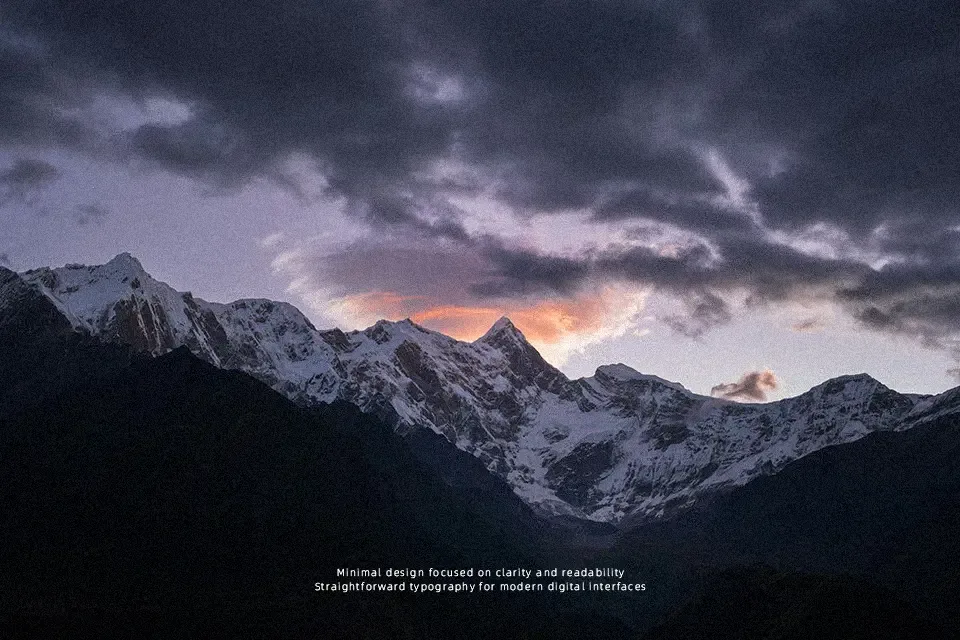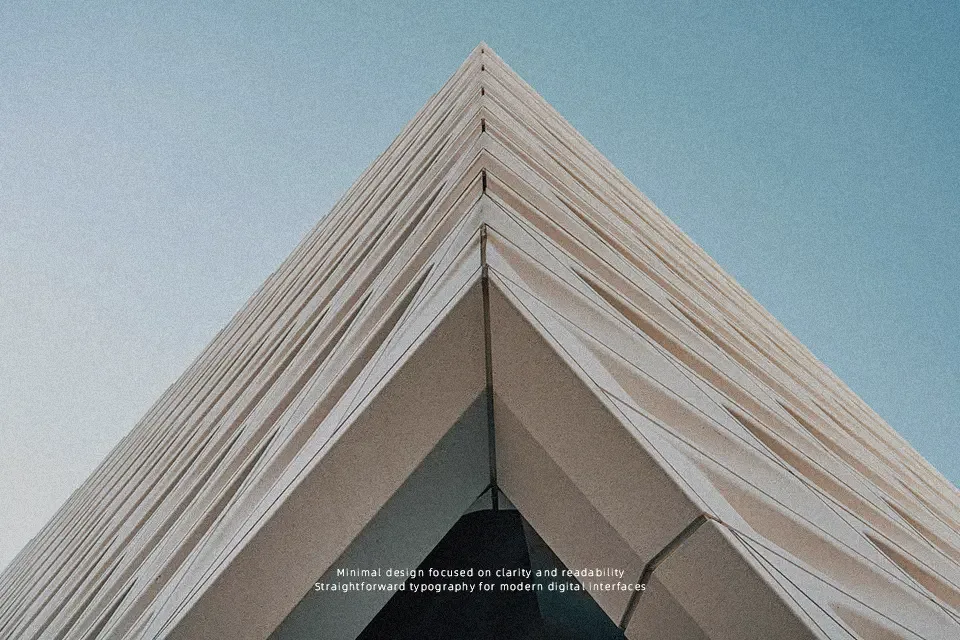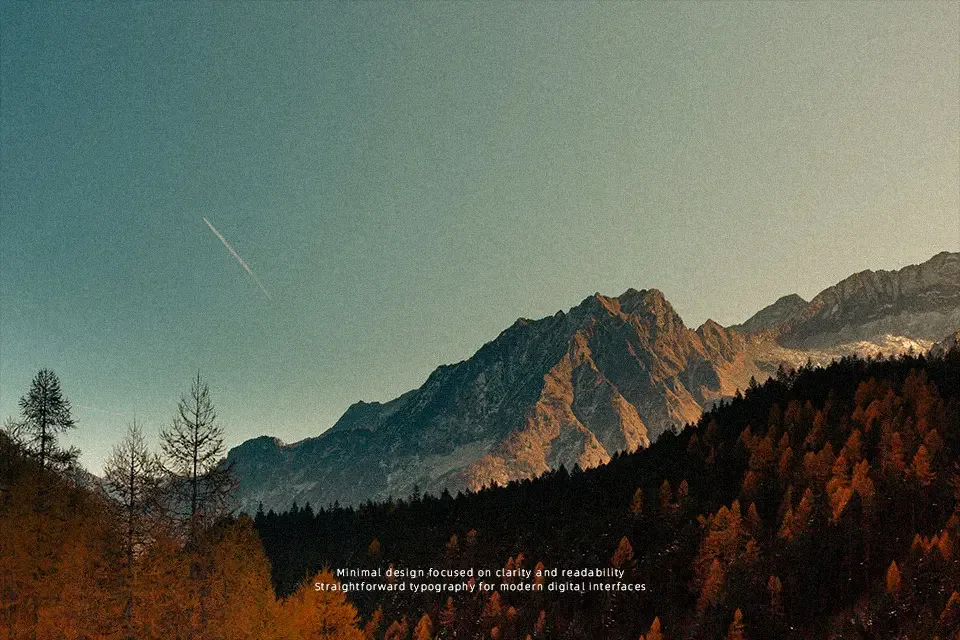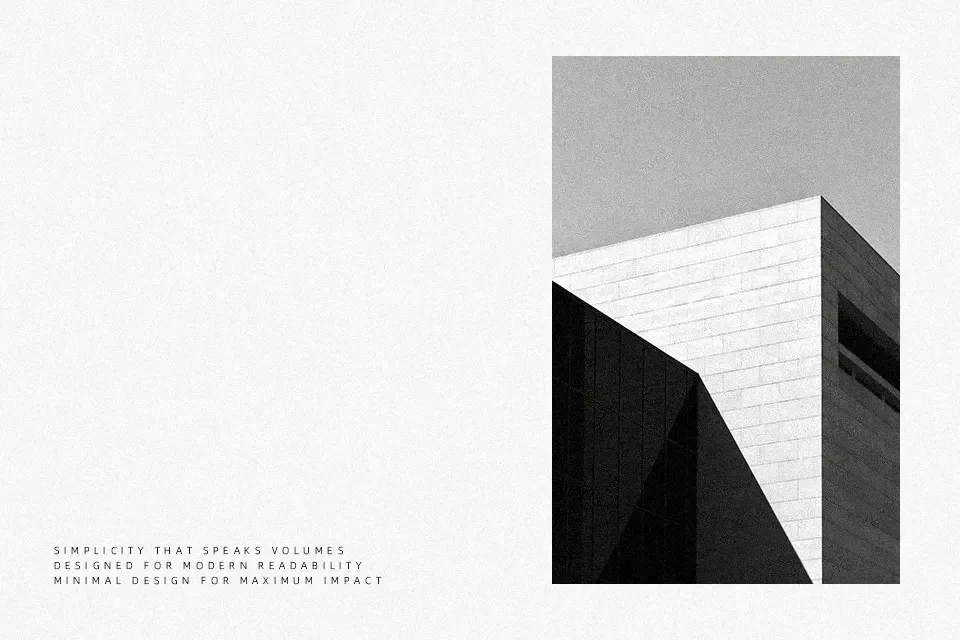
Realty Values Single Line Font
A casual design scenario immediately benefits from the playful geometry of Realty Values Single Line Font. The typeface features an entirely monolinear stroke style, ensuring consistent thickness across all uppercase and lowercase letterforms. Its open spacing and balanced proportions provide a relaxed, handcrafted rhythm that feels naturally energetic. The generous counters maintain clarity in medium display settings, making it highly effective for greeting cards and customized craft projects. However, the thin strokes reduce continuous reading comfort, meaning the design is less suitable for dense paragraph text. The consistent character widths help maintain visual balance in short headlines, though the informal structure may lose legibility when scaled down to very small interface labels.
custom craft projects, playful greeting cards, children’s book covers
dense editorial layouts, small interface labels, corporate reports
Perfect for headline, invitation, and kids, with a creative and cartoon style.